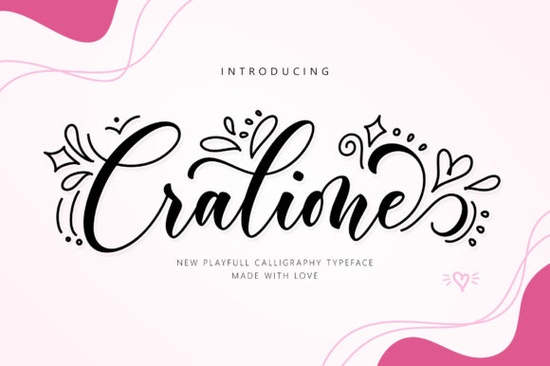
When it comes to adding a touch of elegance and sophistication to your designs, the Cralione Script Font is a fantastic choice. This dazzling script font is neatly crafted and highly detailed, making it a wonderful asset for any creative project. Whether you're working on wedding invitations, branding, or social media graphics, Cralione Script can enhance your creations with its graceful and flowing style.
Why Choose Cralione Script Font?
Cralione Script is more than just a pretty face; it's a versatile and functional font that can be used in a variety of design contexts. The font is PUA encoded, which means you can easily access all glyphs and swashes, giving you the flexibility to create unique and personalized designs. This feature is particularly useful for designers who want to add a personal touch to their work without the need for complex software.
How Can I Use Cralione Script Font in My Designs?
The beauty of Cralione Script lies in its versatility. Here are some ways you can incorporate this font into your projects:
- Wedding Invitations: Add a touch of romance and elegance to your wedding invitations. Pair Cralione Script with a simple, clean font like Baby Handwrite for a balanced and sophisticated look.
- Branding and Logos: Create a memorable brand identity by using Cralione Script in your logo. Its flowing and elegant style can help your brand stand out and make a lasting impression.
- Social Media Graphics: Enhance your social media posts with Cralione Script. It's perfect for creating eye-catching quotes, announcements, and promotional graphics that grab attention and engage your audience.
- Print-on-Demand Products: Use Cralione Script to create unique and appealing designs for print-on-demand products such as t-shirts, mugs, and tote bags. The font's intricate details will make your products stand out.
What Makes Cralione Script Stand Out?
One of the key features that sets Cralione Script apart is its attention to detail. The font is meticulously crafted, with each letter and swash designed to flow seamlessly into the next. This level of craftsmanship ensures that your designs will look professional and polished. Additionally, the PUA encoding makes it easy to use all the special characters and swashes, even if you're not a seasoned designer.
How Does Cralione Script Compare to Other Script Fonts?
While there are many script fonts available, Cralione Script stands out for its balance of elegance and usability. If you're looking for similar fonts, you might also consider Sweet Apricot or Heartberry. These fonts share a similar romantic and flowing style, but each has its own unique character. For example, Sweet Apricot is slightly more whimsical, while Heartberry has a more traditional and classic feel.
Another great option is Allura Signature, which is known for its signature-style script. If you're working on a project that requires a more handwritten and personal touch, Allura Signature could be a good alternative. Alternatively, Wedding 10 Bundle offers a collection of 10 different script fonts, providing a wide range of styles to choose from for your wedding-related designs.
Tips for Using Cralione Script Font Effectively
- Pair with Complementary Fonts: Combine Cralione Script with a simpler, sans-serif font to create a balanced and readable design. This pairing works well for both digital and print projects.
- Use Swashes Sparingly: While the swashes in Cralione Script are beautiful, using them too frequently can make your design look cluttered. Use them strategically to highlight important elements.
- Test on Different Backgrounds: Ensure that the font is legible on various backgrounds. Test it on light, dark, and textured backgrounds to see how it performs.
- Consider the Context: Think about the tone and style of your project. Cralione Script is best suited for elegant and romantic designs, so make sure it fits the overall aesthetic of your project.
By following these tips, you can make the most of Cralione Script and create stunning, professional-looking designs that capture the attention and admiration of your audience.